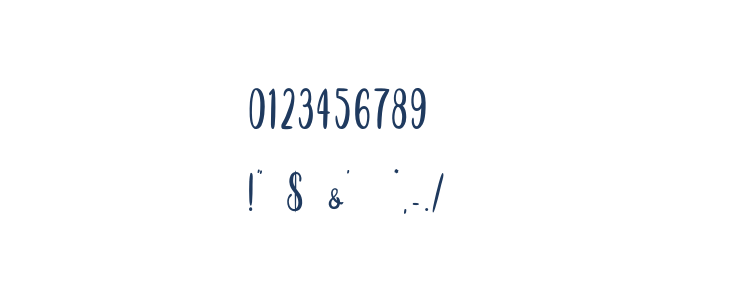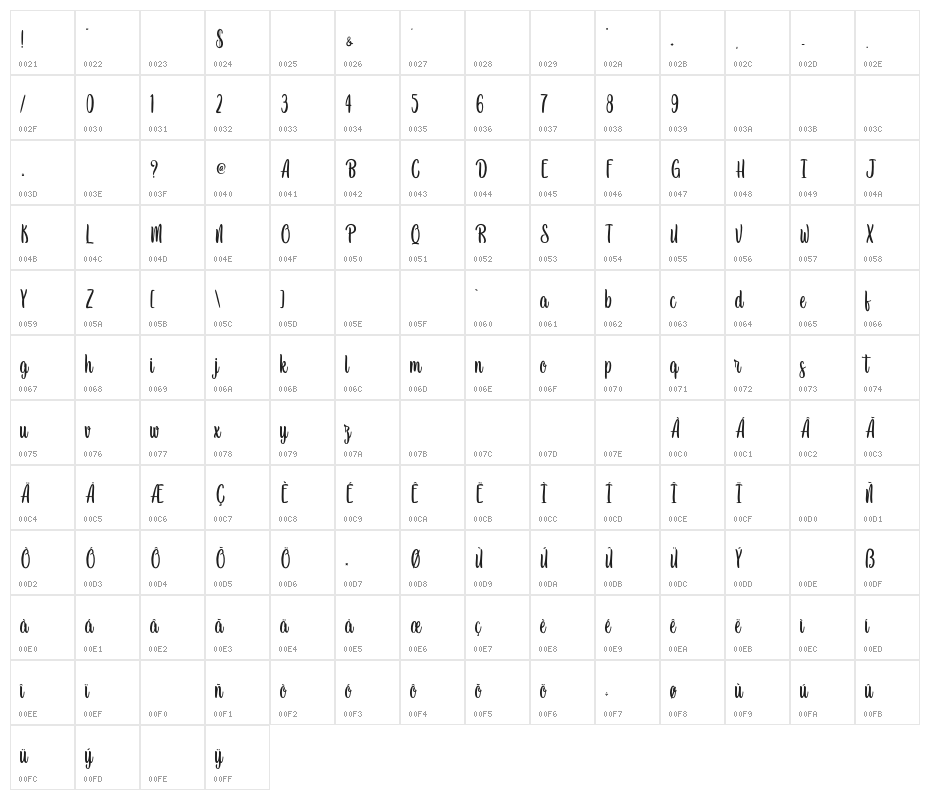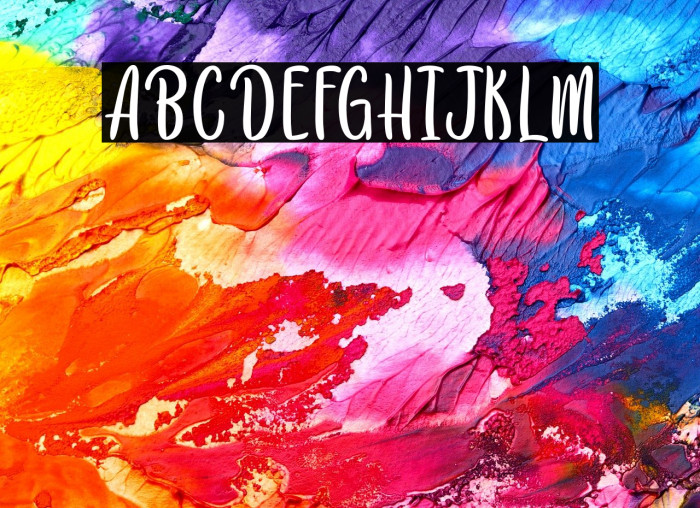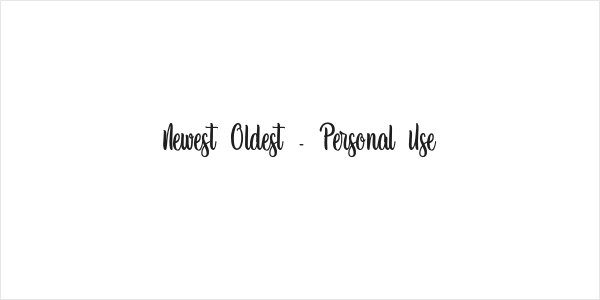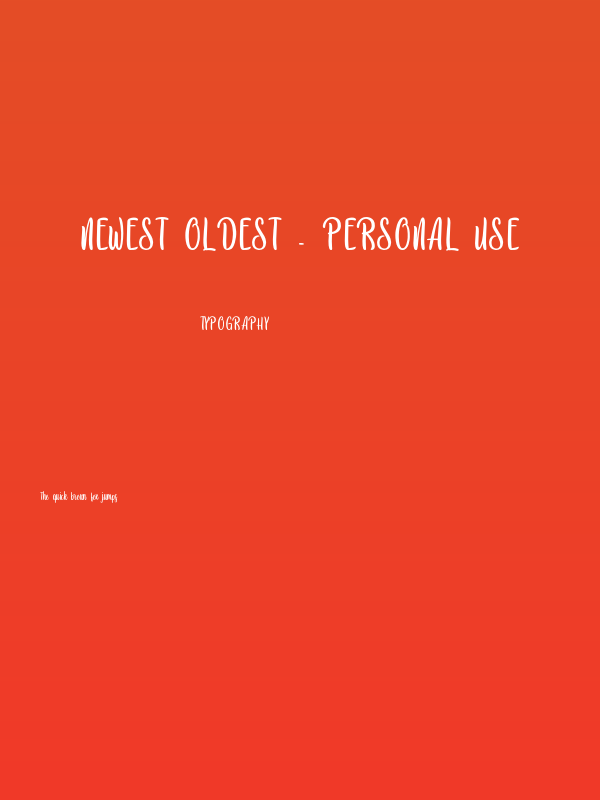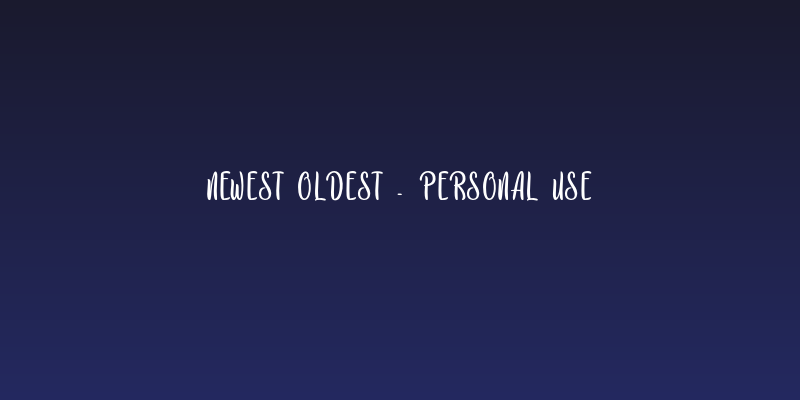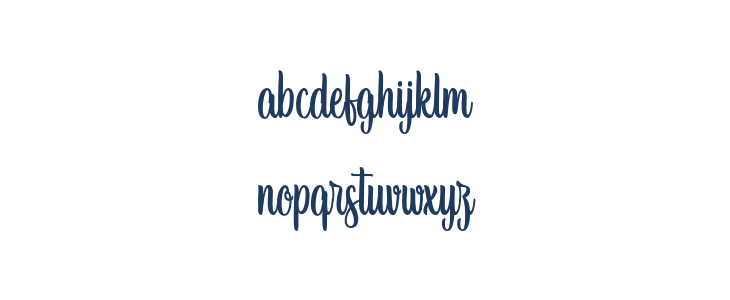
Newest Oldest - Personal Use Font
Newest Oldest - Personal Use Description
This font features a playful and energetic script style with a handwritten feel. The letters are bold and slightly slanted, giving a sense of motion and fluidity. The uppercase characters are tall and narrow, while the lowercase letters maintain a consistent height with gentle curves. Numbers are clear and legible, matching the overall aesthetic. Special characters are creatively integrated, maintaining the font's lively and informal tone. This font is ideal for projects that require a personal touch, such as invitations, greeting cards, or branding for creative businesses.
| Use Case | Logos, Headlines, Personal projects |
| Proposed Projects | Ideal for invitations, greeting cards, creative branding, and personal projects. |